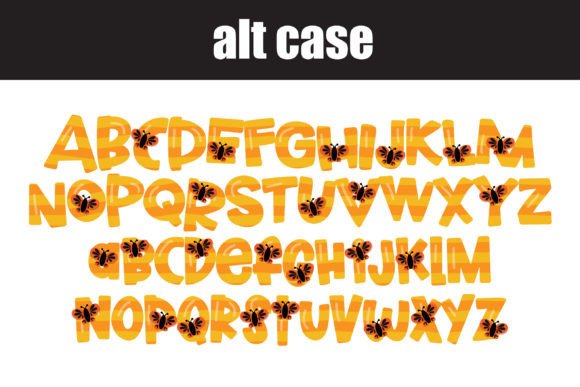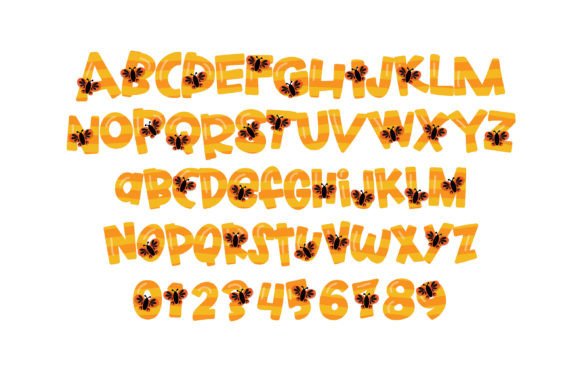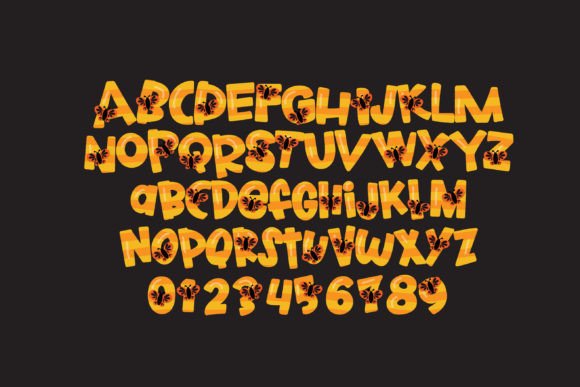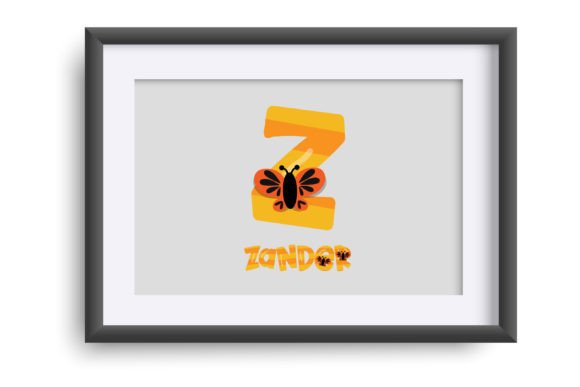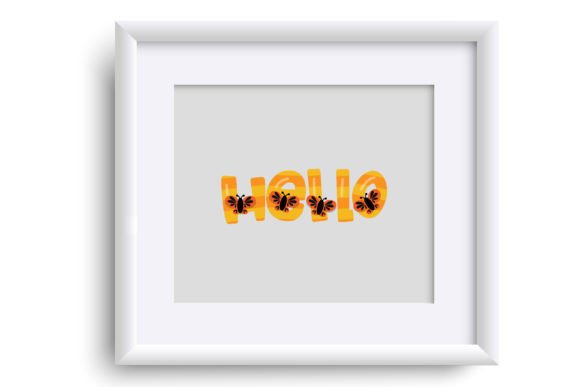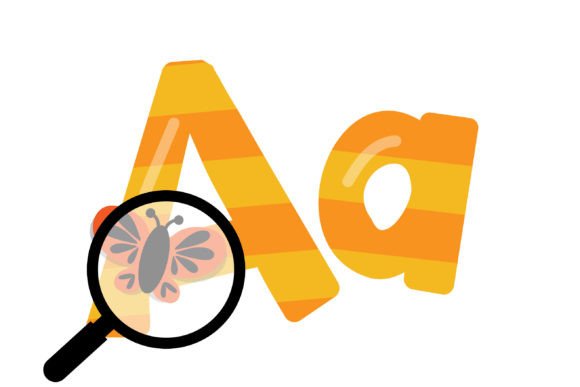
Have you ever sat down with a blank page, surrounded by scraps of paper, paint swatches, and a notebook filled with inspirational quotes? The creative spark is there, but something’s missing. It’s the perfect moment to bring in a little magic – a font that transports you to a world of wonder and enchantment. That’s exactly what the Butterflyabet Warm Font does. This stunning full-color font is designed to add a playful, whimsical touch to your titles, displays, and posters.
As a designer, you know how crucial it is to have the right tools at your disposal. The Butterflyabet Warm Font is a valuable addition to your toolkit, offering a unique blend of color and style that’s sure to captivate your audience. Whether you’re working on a children’s book, a wedding invitation, or a marketing campaign, this font is sure to bring a smile to your face and a touch of personality to your design.
Butterflyabet Warm Font Key Features
- Font Family: Butterflyabet Warm Font is a unique, hand-drawn font designed to evoke a sense of warmth and comfort.
- Unique Characteristics: The font features a distinctive, whimsical design with subtle imperfections, giving it a handmade feel.
Designer Review: Butterflyabet Warm Font
✨ I really enjoy working with the Butterflyabet Warm Font. The first thing I notice is how it effortlessly creates a cozy and inviting atmosphere in any design. The curves and lines are so well-balanced, making it perfect for projects that require a touch of warmth and elegance. The font is also highly legible, even at smaller font sizes.
✨ Another thing I appreciate is the versatility of the font. It works well for both digital and print projects, and its compatibility with various design software is seamless. The font’s range of styles and weights also makes it easy to experiment with different looks and feels.
⚠️ While I love the Butterflyabet Warm Font, I do find it a bit limited in terms of its expressiveness. It’s a very ‘safe’ font, which can make it feel a bit bland in certain contexts. Additionally, some users may find the font’s curves and lines a bit too uniform, which can make it difficult to create a sense of hierarchy in a design.
- Limited expressiveness
- May feel bland in certain contexts
- Uniform curves and lines can make it hard to create hierarchy
Overall, I think the Butterflyabet Warm Font is a solid choice for designers looking to create inviting and elegant designs. While it may have some limitations, its strengths far outweigh its weaknesses. With a bit of creativity and experimentation, this font can be used to create truly stunning designs that capture the essence of warmth and sophistication.
To get the most out of the Butterflyabet Warm Font, try combining it with other warm-toned fonts or graphics. Experiment with different font sizes, colors, and arrangements to create visually appealing designs.
The Butterflyabet Warm Font is ideal for creating warm and inviting designs, such as:
– Branding materials (logos, business cards, etc.)
– Marketing materials (posters, flyers, etc.)
– Website headers and footers